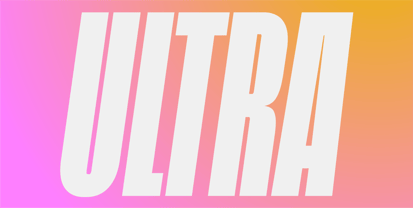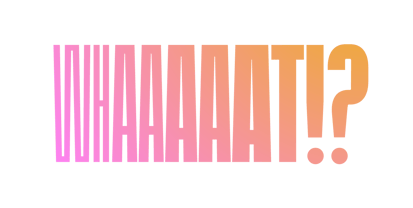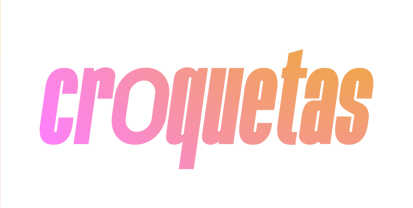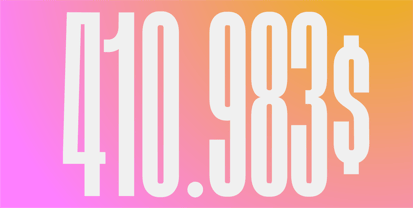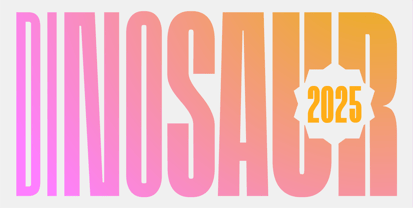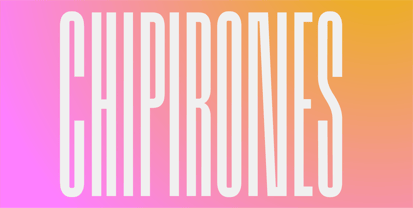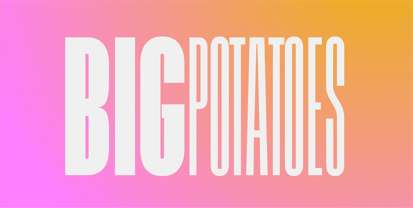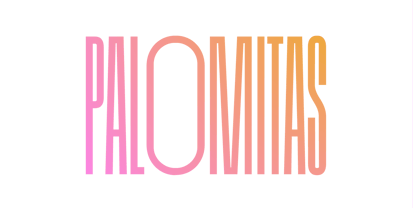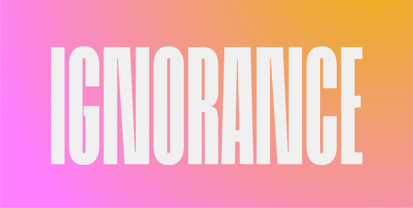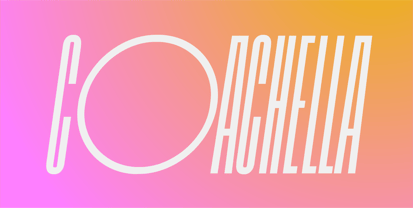
Dinosaur2025
by Daniel Uzquiano
Dinosaur 2025 is the updated, variable version of the original Dinosaur typeface — a grotesk, ultra-condensed display font now supercharged with more versatility and attitude.
This new release features three powerful axes: Weight, ranging from Light to Black; Italic, for dynamic slanted styles; and Special, a unique axis dedicated to transforming the uppercase O into alternate, expressive shapes.
With 448 glyphs per style and support for over 200 Latin-based languages, it combines multilingual flexibility with sharp visual character. OpenType features include stylistic alternates, case-sensitive forms, and more.
This typeface doesn’t whisper — it shouts. Designed for oversized display, punchy headlines, and maximalist layout work, Dinosaur 2025 gives you precise typographic control with an unmistakable voice.